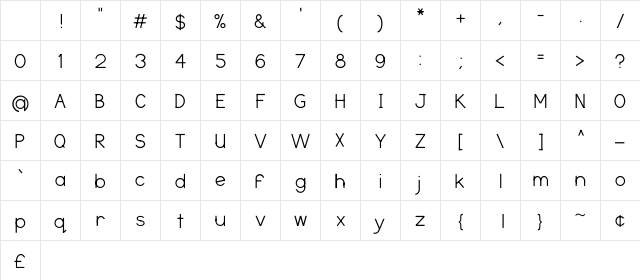
Zuben is a composed and adaptable typeface that performs quietly and consistently across a wide range of design contexts.
Pro Tip: Use Zuben in both headline and body roles to test its range before committing to a single application.